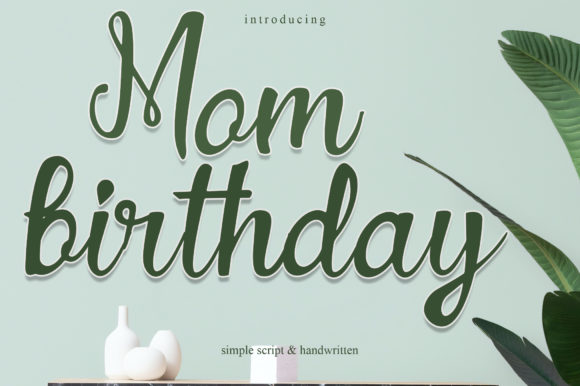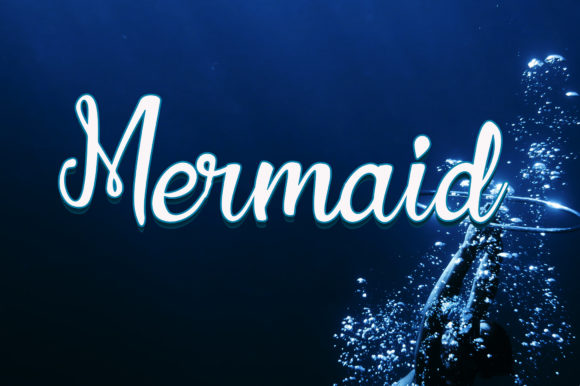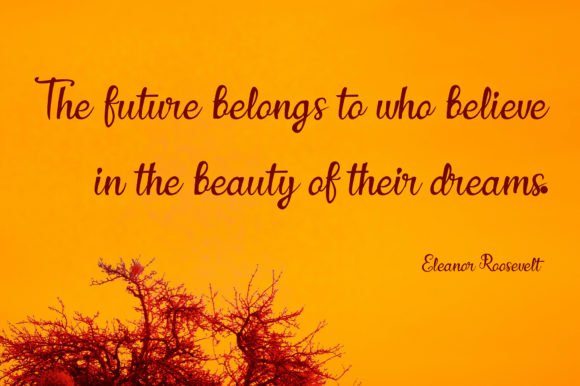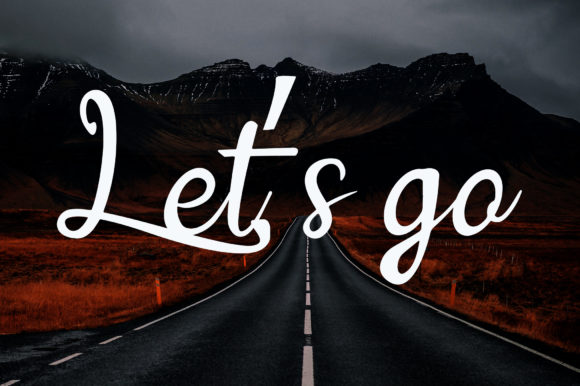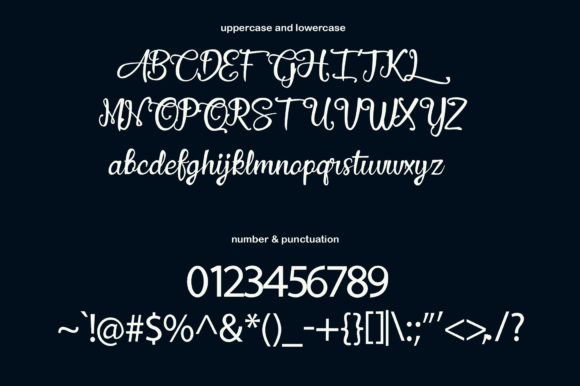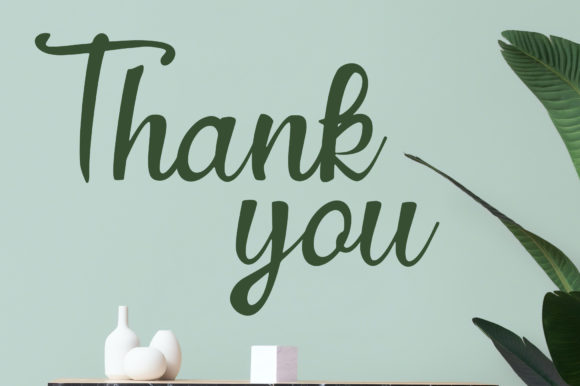
Mom Birthday Font
About Mom Birthday Font
Mom Birthday is a beautiful, cursive and well balanced script font. This font is the perfect option for each of your personalized creations.